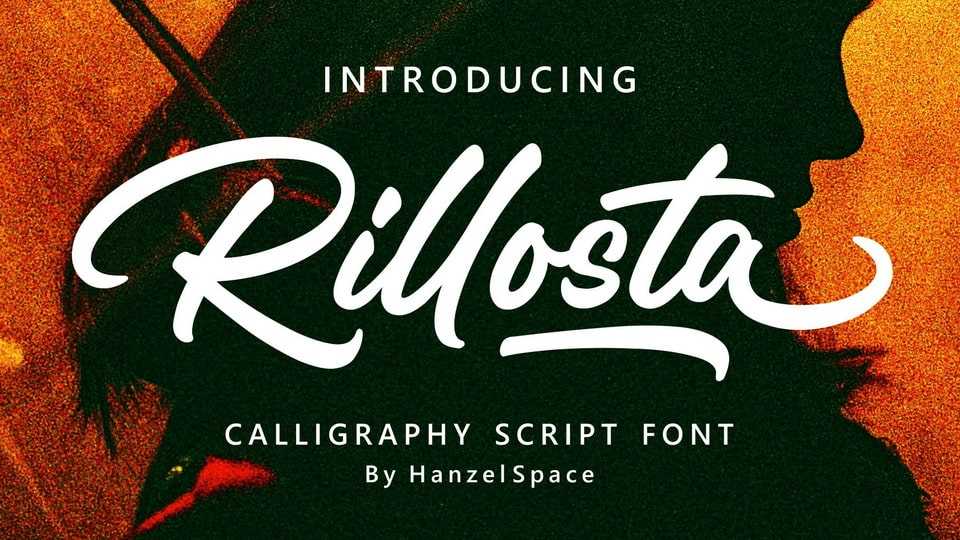
Download Rillosta font, a typeface inspired by an elegant design and its anatomy looks proportional and attractive in every curve so that this font is very suitable for use in various designs for product branding, logos, labels and others.